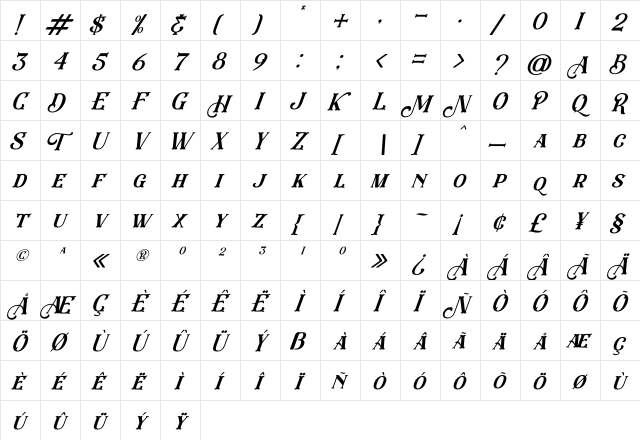
Eastwood Italic
Design Context for Eastwood Typeface
Eastwood echoes the hand-painted signage and woodblock typography of the American frontier, with a warm, rugged personality. The slanted form adds forward momentum and visual energy.
A natural fit for craft spirits, ranch branding, rodeo events, and Americana-inspired design work.
Font Pairing: Combine Eastwood with a simple slab or neutral sans — period-accurate companions reinforce the vintage feel without competing for attention.
Pro Tip: Use Eastwood for short, impactful bursts of text — it shines in poster headlines and product names rather than extended copy.